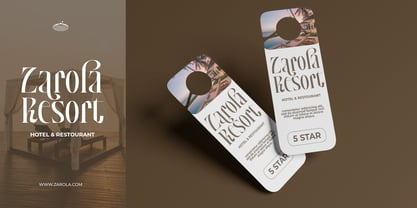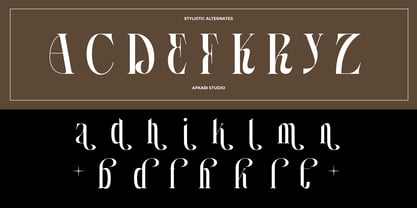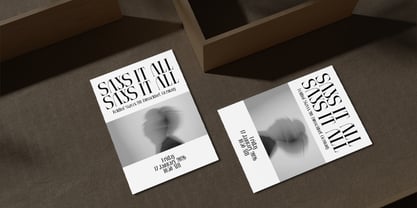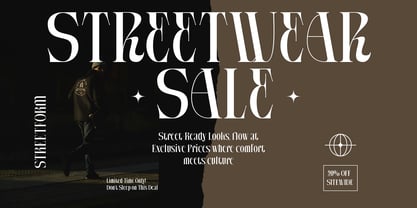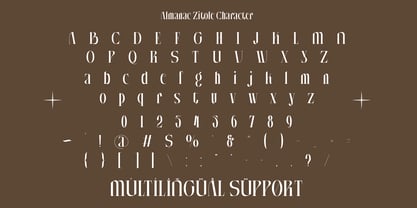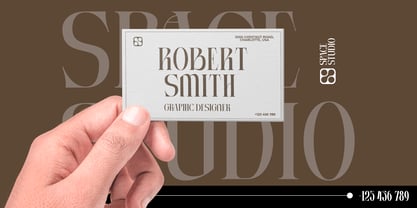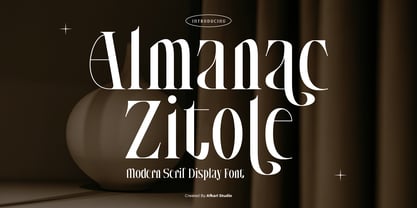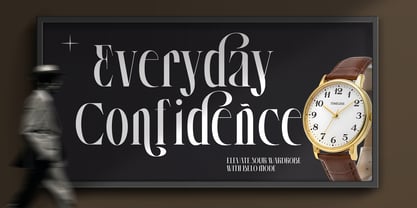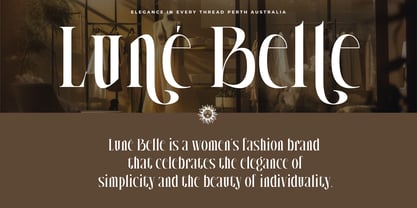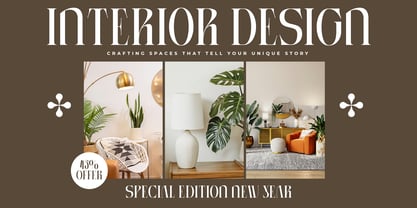
Almanac Zitole
The Almanac Zitole Font Family was designed by Musthafa Kamal Emje and published by Afkari Studio. Almanac Zitole contains 1 styles. More about this family
Almanac Zitole is a refined modern serif display font designed to bring elegance, contrast, and sophistication into your creative projects. With its sharp serif details, balanced proportions, and contemporary structure, this typeface blends classic serif beauty with a modern editorial aesthetic. The result is a stylish display font that feels luxurious, confident, and highly professional. Created especially for branding and high-impact headlines, Almanac Zitole works beautifully for fashion logos, beauty packaging, magazine covers, luxury branding, wedding designs, social media graphics, and premium marketing materials. Its distinctive serif shapes and carefully crafted letterforms create a strong visual identity while maintaining excellent readability at larger sizes. Almanac Zitole includes uppercase and lowercase letters, numbers, punctuation, and multilingual support, making it suitable for global design projects. The font’s modern serif character makes it ideal for elegant typography layouts, high-end product branding, boutique logos, cosmetic labels, and editorial compositions. Whether you’re building a luxury brand identity or crafting a striking magazine headline, this modern serif display font delivers timeless style with a contemporary twist. Highlighted Features: - Uppercase, Lowercase, Number, and Punctuation - Special alternates - Modern serif display font - Elegant and high-contrast letterforms - Works on PC & Mac - Simple installations - Accessible in Adobe Illustrator, Adobe Photoshop, Adobe InDesign, and even work on Microsoft Word - Fully accessible without additional design software. - Mültîlíñgúãl Sùppört for; ä ö ü Ä Ö Ü ß ¿ ¡ If you’re searching for a modern serif font that feels both classic and fresh, Almanac Zitole is the perfect choice to elevate your next creative project with elegance and distinction.
Almanac Zitole